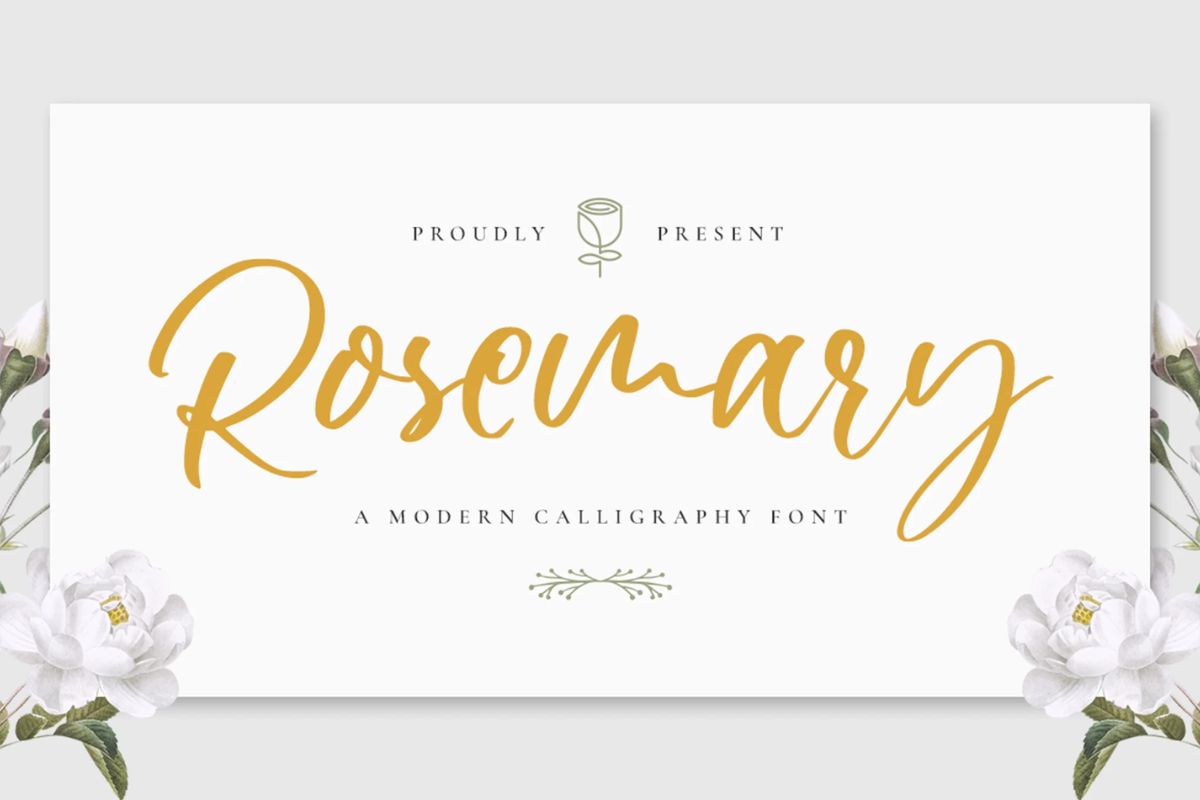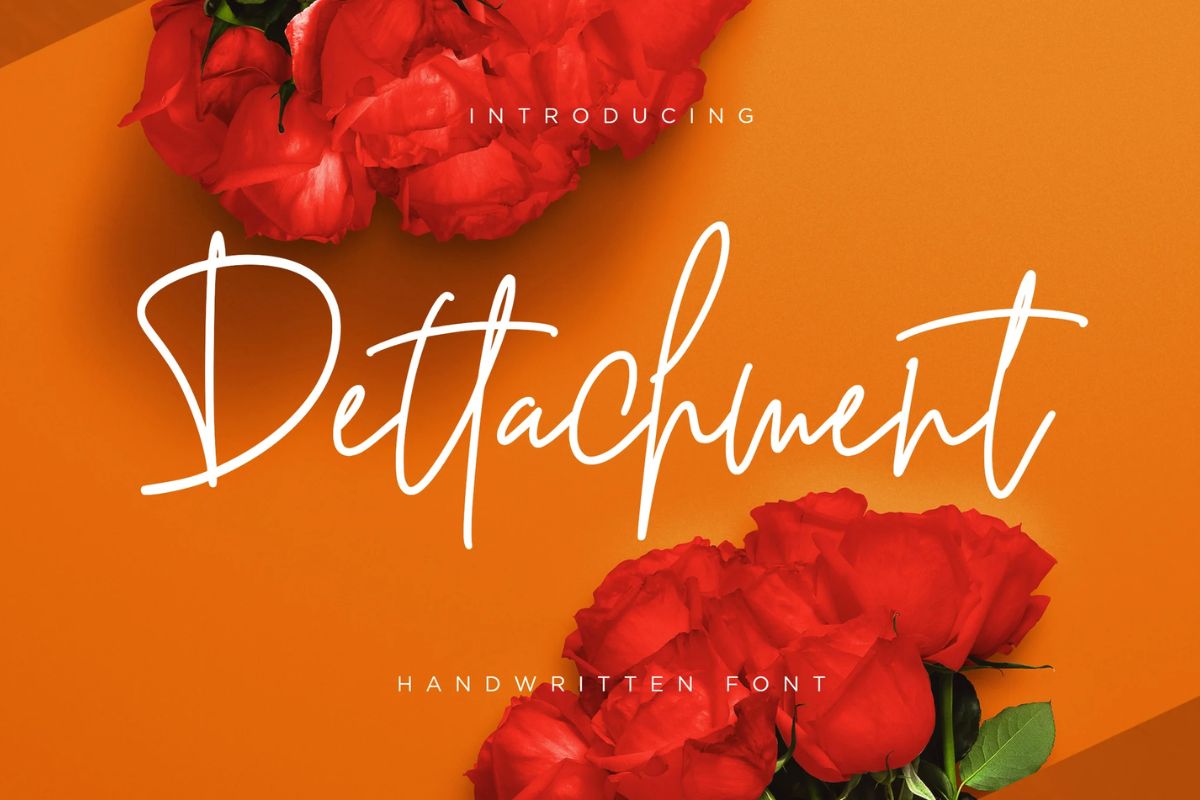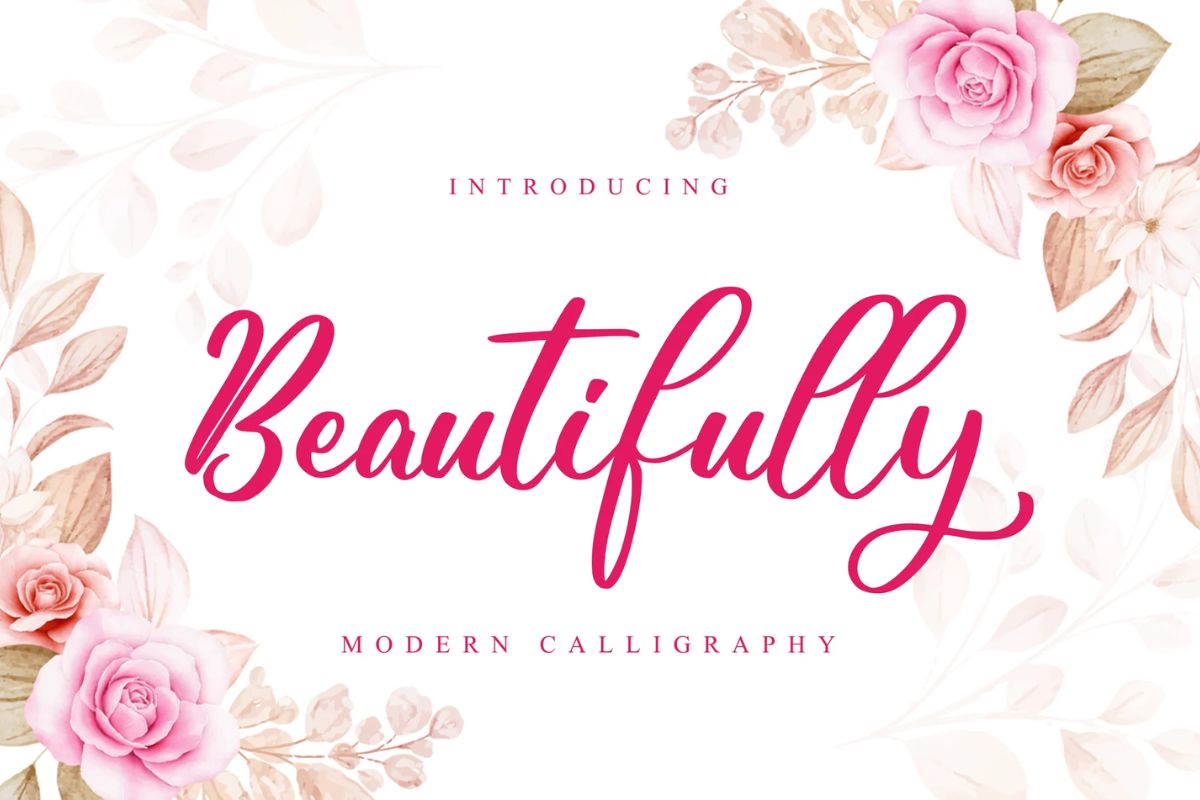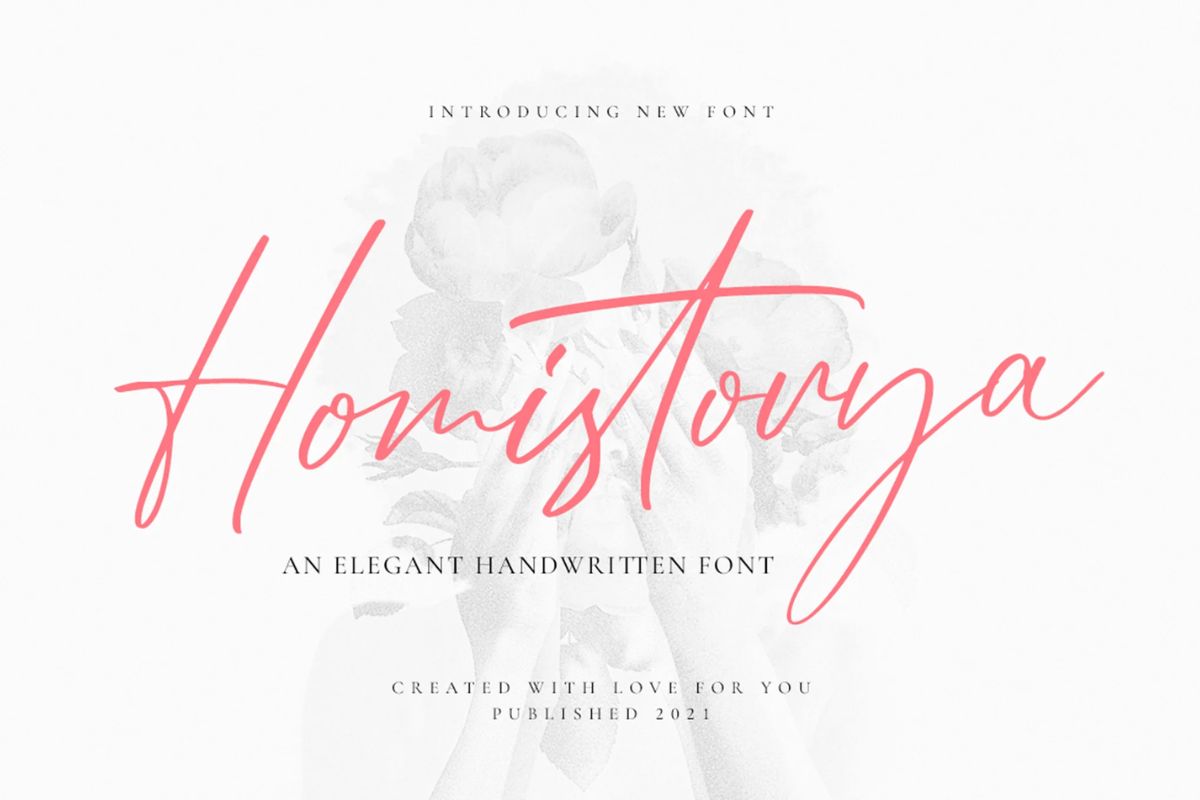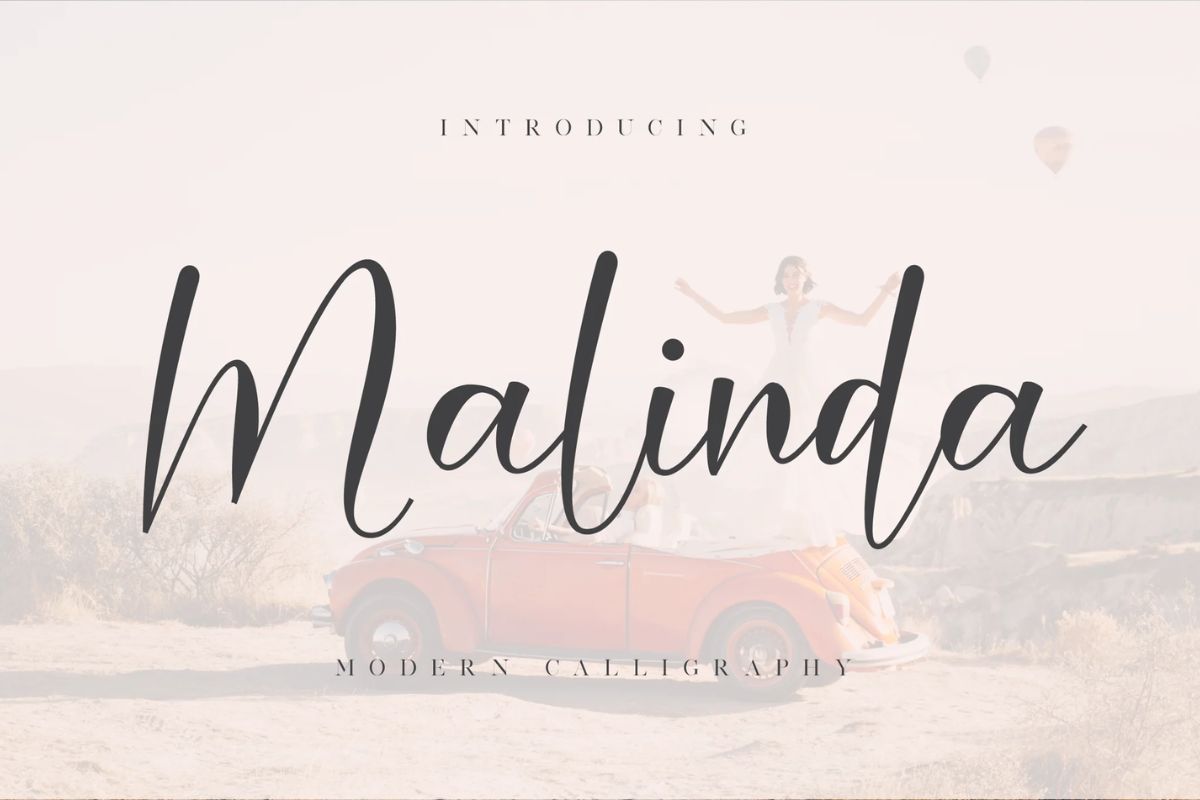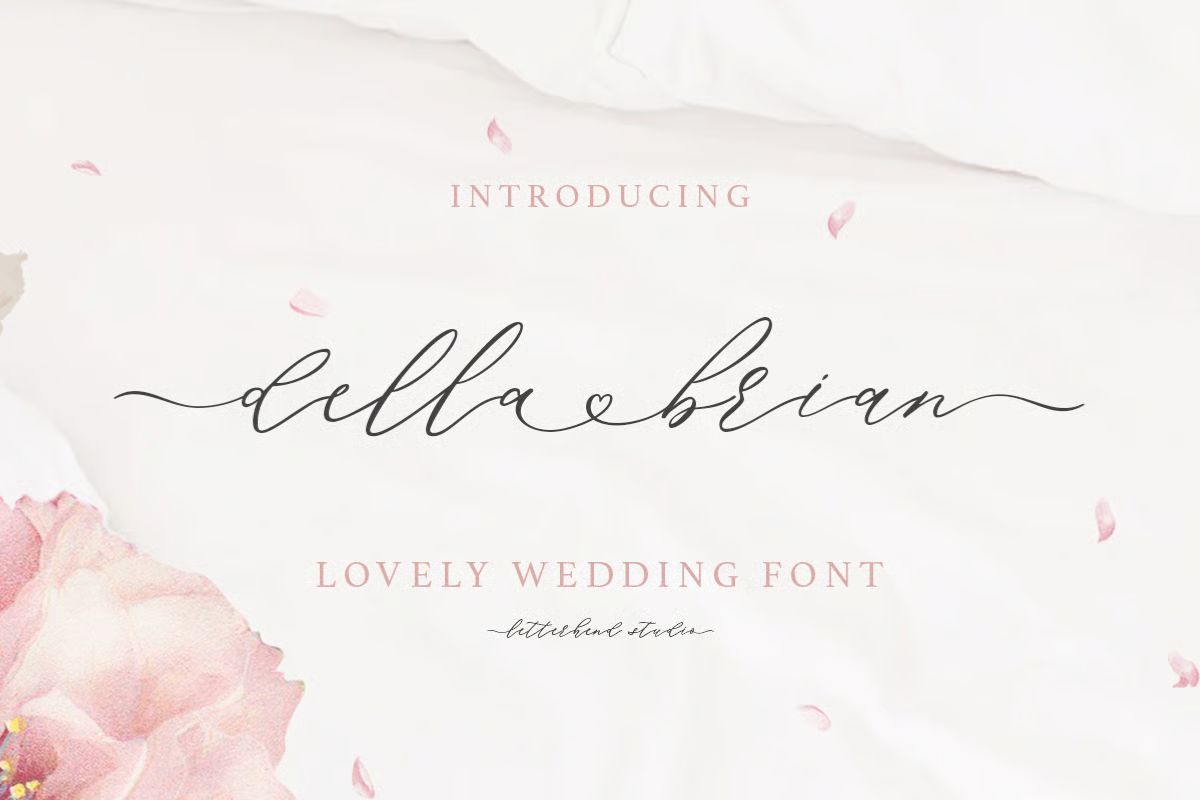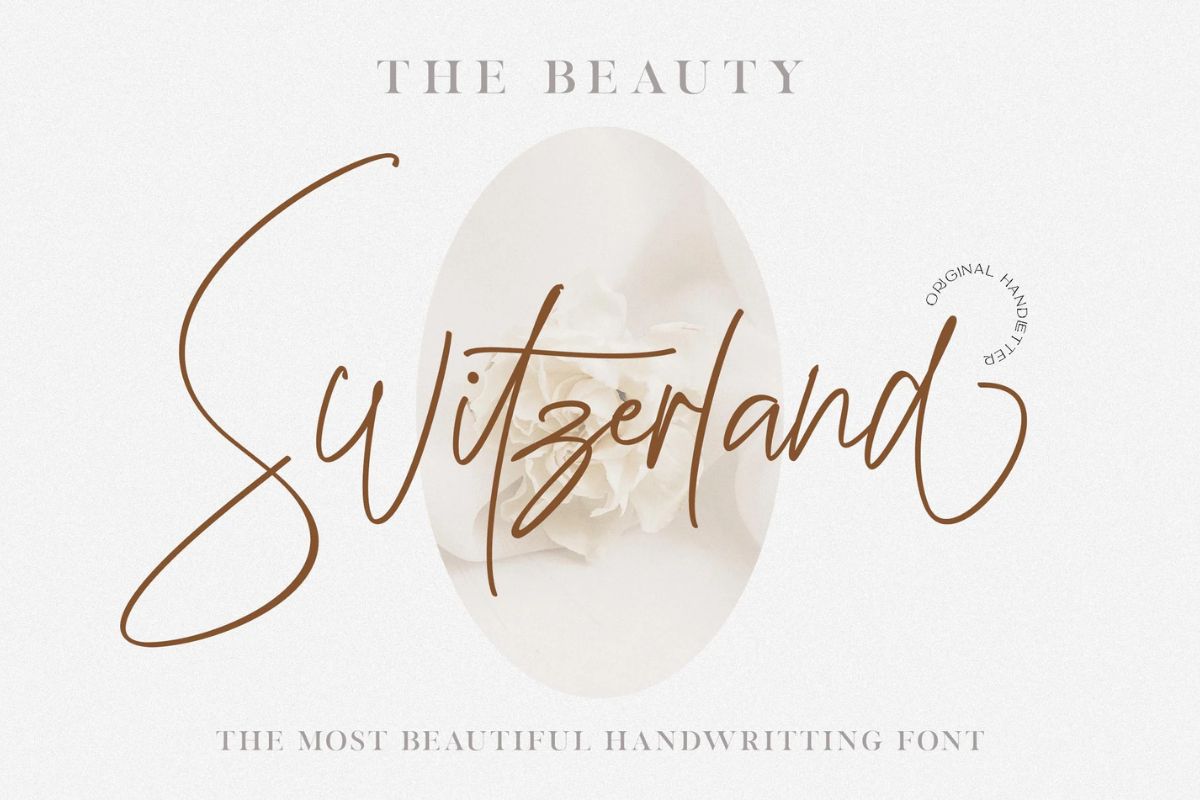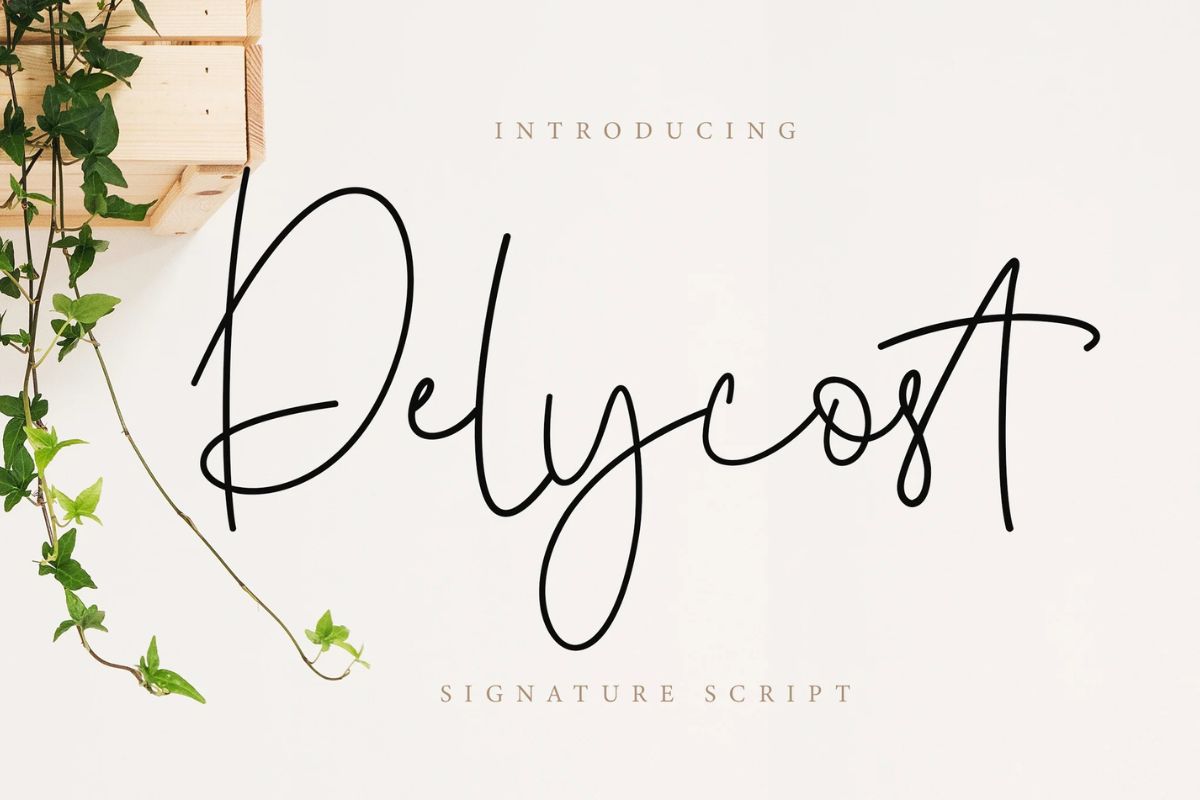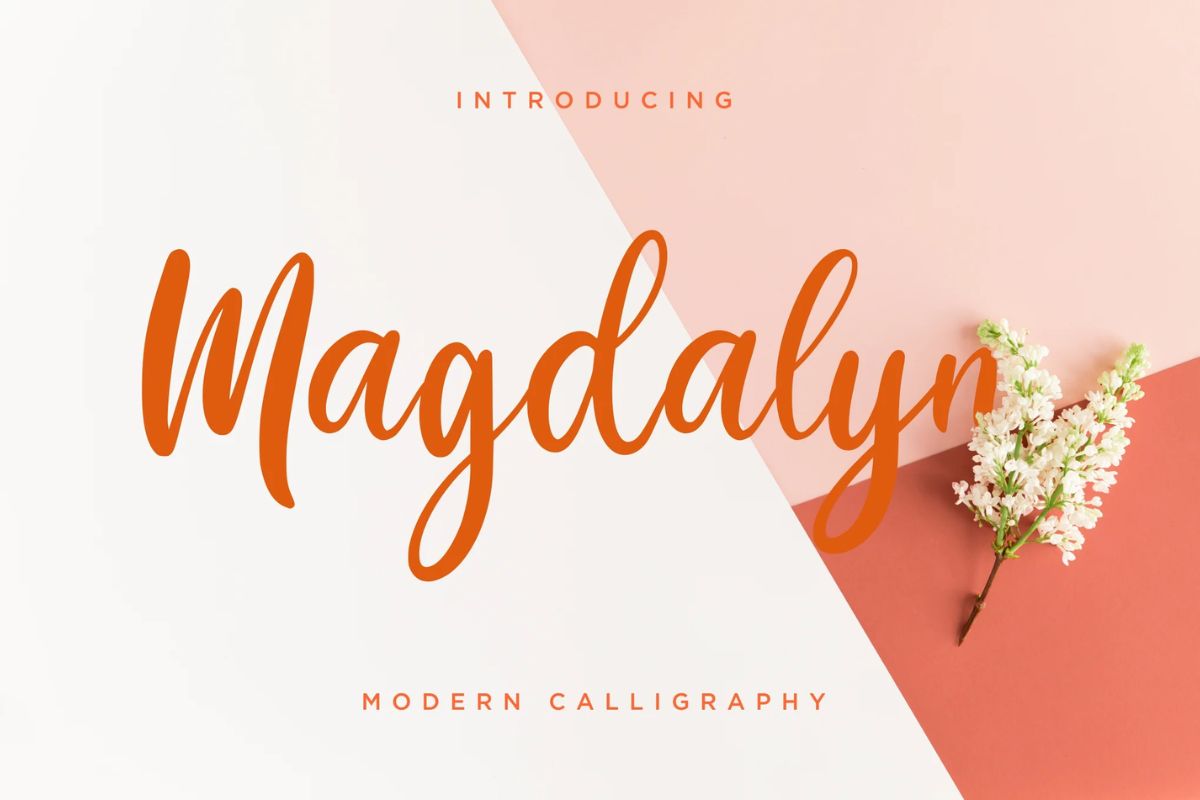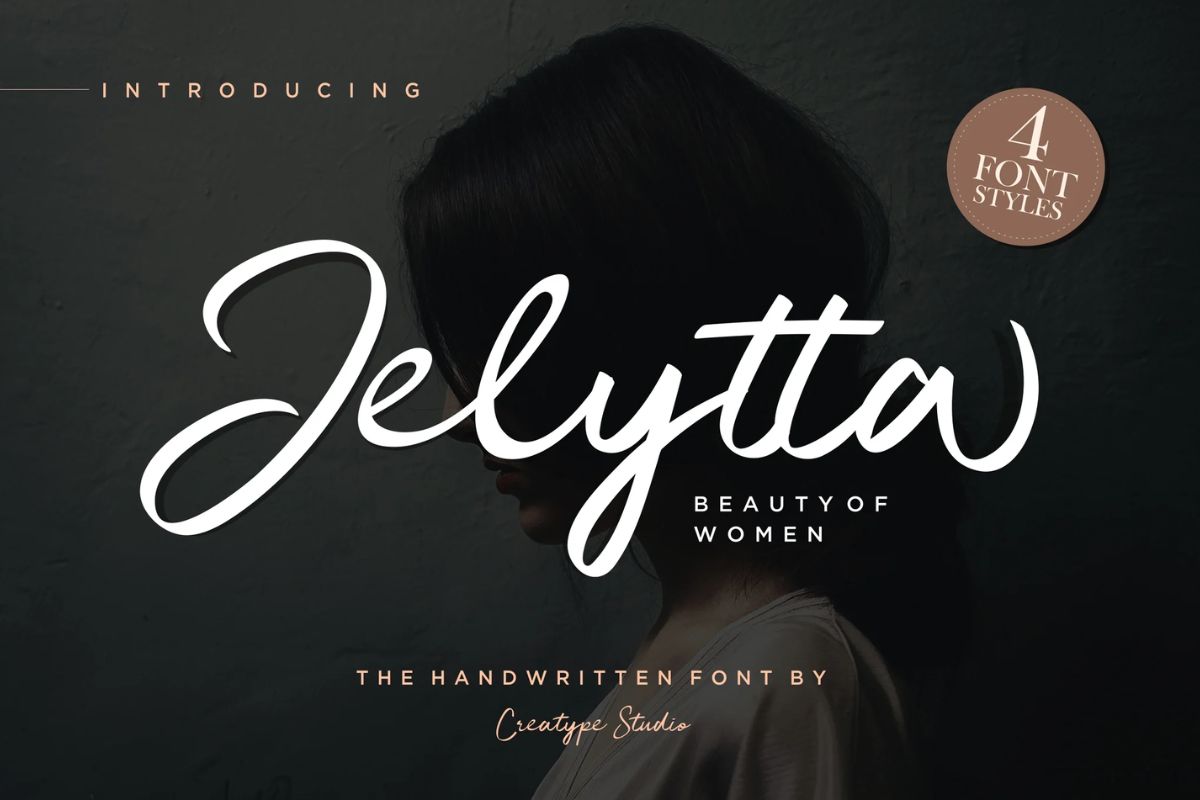
15+ Gorgeous Wedding Fonts for Your Big Day
Introducing gorgeous wedding fonts for your wedding ceremony. When it comes to planning a wedding, there are numerous details that need to be taken into consideration. From the venue to the décor, every aspect must be carefully planned and executed. One of the most important details is the font you choose for your invitations, programs, and other stationery.
Your font should reflect the overall theme and style of your wedding, and it should be appropriate for the occasion. Fortunately, there are plenty of gorgeous wedding fonts that can be used to make your wedding stationery stand out. Here are 15 of the best fonts for wedding stationery:
Juliette – Modern Script Font
Juliette combines classic curves with a modern twist. It’s perfect for personal branding or creative design work.
Rosemary – Gorgeous Wedding Font
Rosemary is a captivating script font. Crafted with meticulous care and richly detailed, this font will prove invaluable in any project where its presence can lend substance to your font collection – be it for connotative enhancement or sheer awe-inspiring beauty.
Dettachment – A Gorgeous Handwritten Wedding Font
Detachment is a classy wedding font for stylish invitations and must for crafting successful branding endeavors, logos, wedding designs and social media posts; it works especially well for advertisements of products packaging as well as product layouts.
Beautifully – Wedding Font
An incredibly beautiful script font. A classy, elegant and modern look font good for wedding stationary.
Homistorya – Wedding Font
An elegant and dainty handwritten font that features sweet and delicate swashes. This original look will appeal to a wide range of crafty ideas, from letterheads and titles, to stationery.
Malinda – Wedding Font
An incredibly beautiful script font. It has a classy, elegant, and modern look which is good for wedding stationary.
Della Brian – Lovely Wedding Font
a lovely wedding font. This font has many stylistic letters, ligatures, swashes so you can play around with them using opentype features and creates lettering with natural touch.
Beauty Switzerland Wedding Font
A beautiful and stylish font which is good for wedding invitation, promotion, and other needs. This font is modern, simple, but still original.
Delycost Signature Wedding Font
Delycostis is a captivating and alluring new font script with a sexy aura.
Magdalyn Modern Wedding Font
Magdalyn is modern calligraphy font that looks elegant and it suit best for wedding invitation event.
Jelytta Handwritten Wedding Font
Jelytta means the beauty of woman. This font inspired by beauty of woman with all their softness make this font looks sophisticated classy, elegant with the softly curve could your project will looks a fabulous and amazing.
Aroma Beauty – A Gorgeous Wedding Font
Aroma Beauty is a luxury typeface, full set of lowercase and uppercase letters, numerals and punctuation, multilingual symbols.
Helena Bloom – A Gorgeous Wedding Font
Helena Bloom – Wedding Font – a Calligraphy Script Font with ligatures and swashes. The unique flow and easy calligraphy style makes it perfect for wedding design, blogging, social media, branding, invitation, gretting cards or simply use it in your next design project.
Loveless Wedding Calligraphy Font
Loveless is a relaxed and flowing Handwritten Font. Incredibly versatile, this font fits a wide pool of designs, elevating them to the highest levels.
Delichan – A Beautiful Calligraphy Font
Delichan: Beautiful and modern fonts that are so special to use in your projects. It is suitable for wedding invitation designs, social media posts, blogs, crafts, quotes etc.
Gianella Wedding Font
Gianella is an exquisite handwritten font, masterfully designed to become a true favorite. It maintains its classy calligraphic influences while feeling contemporary and fresh.
Conclusion
Your wedding is a singular occasion filled with memories that lasts a lifetime. So, it’s essential that you choose the right fonts to use in your design – from the eloquent words of your wedding ceremony script to the captivating name of your guest book!